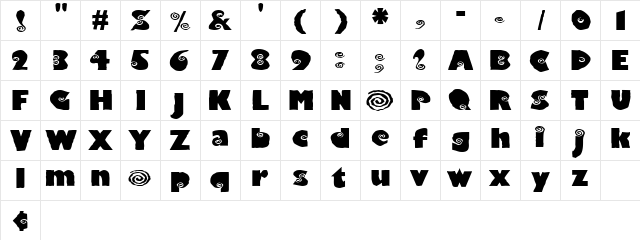
VertigoExtended Regular
Design Context for VertigoExtended Typeface
VertigoExtended is a composed and adaptable typeface that performs quietly and consistently across a wide range of design contexts.